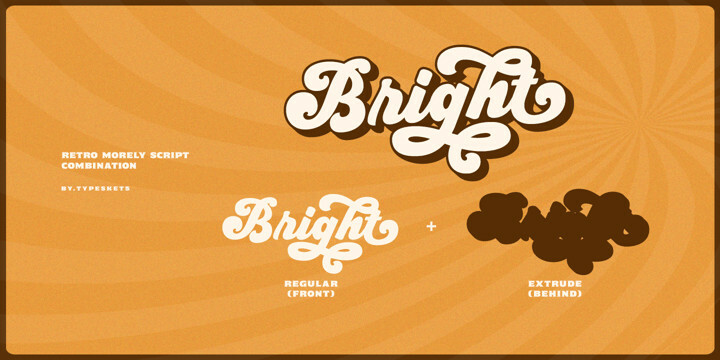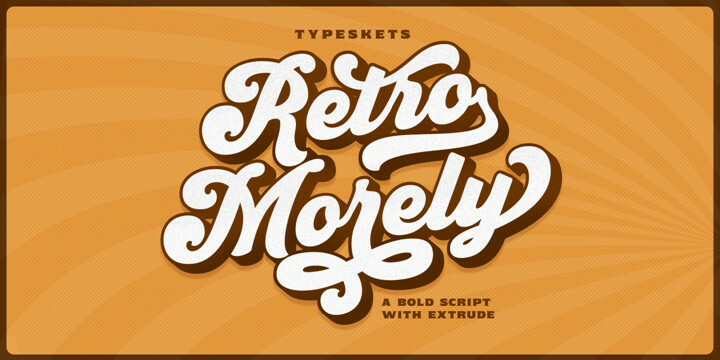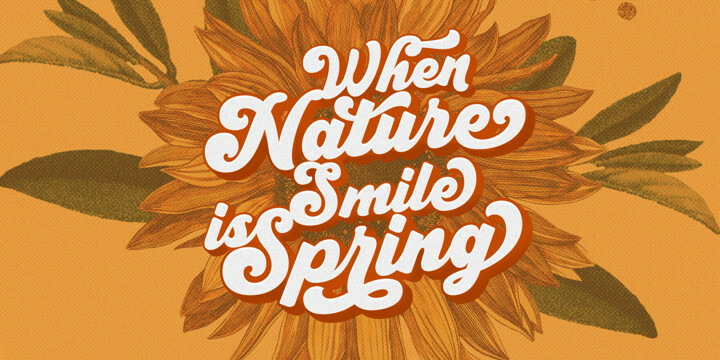
Retro Morely Font Family
Retro Morely Font FamilyI want to introduce this cool font, namely (Retro Morely) which is a Bold script font with a charming touch of Retro style, this font also looks interesting because I added some alternative features that you can use, don’t forget to add extrude style in it to make it look more Attractive for your designs, this font is suitable for those of you who want a design that displays an old-fashioned side but is still relevant for a charming modern look. there’s nothing wrong if you feel all the experience of using this font in your designs, make this font as one of the font collections on your computer